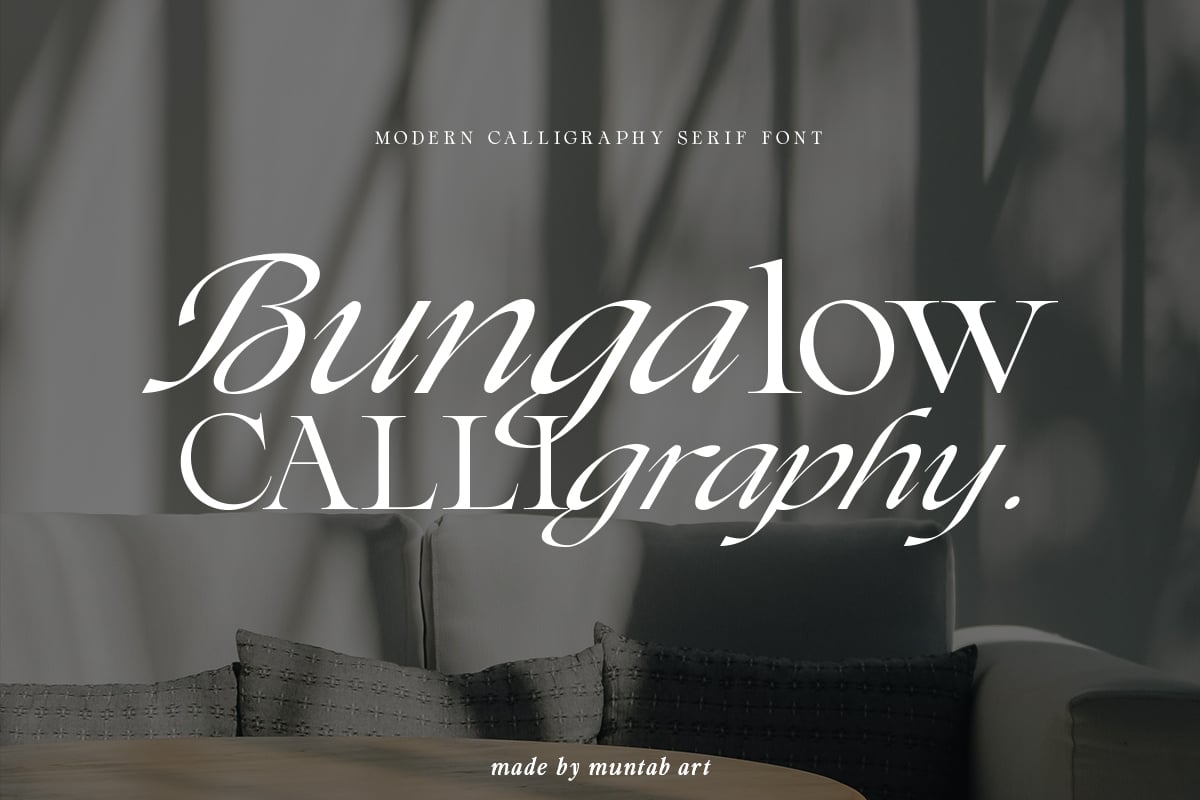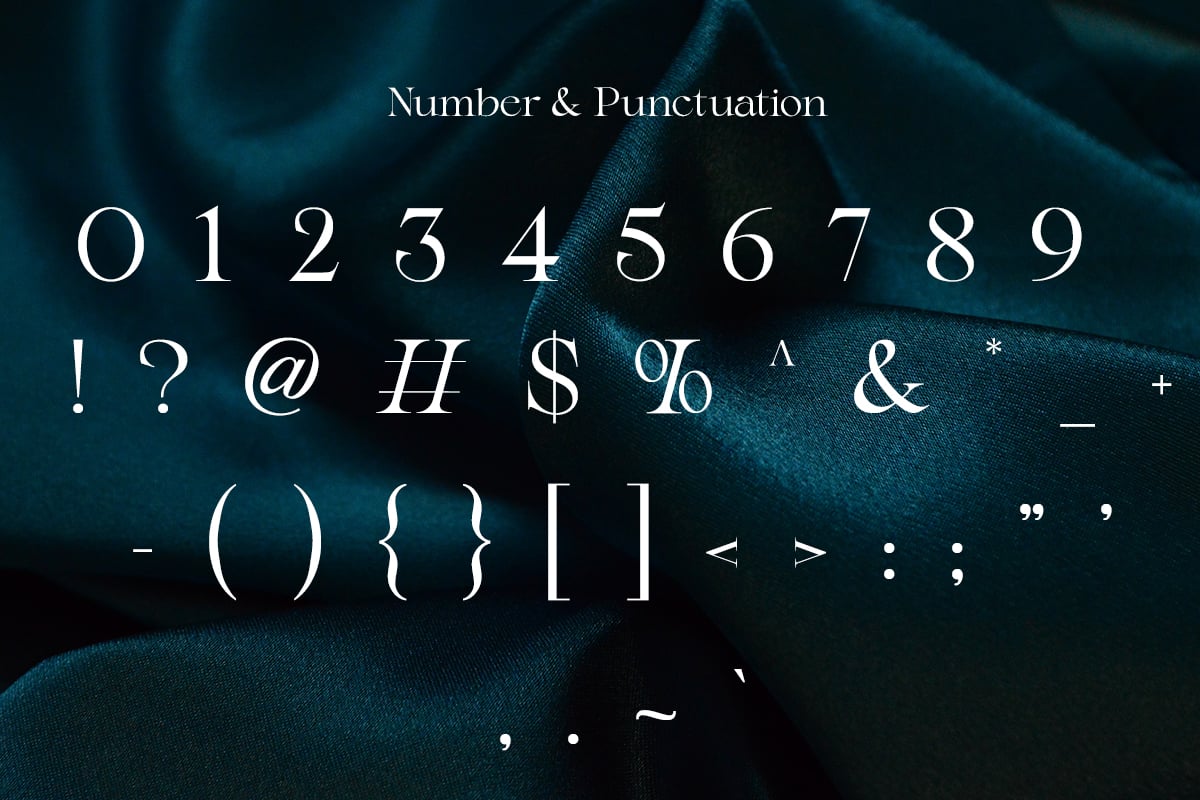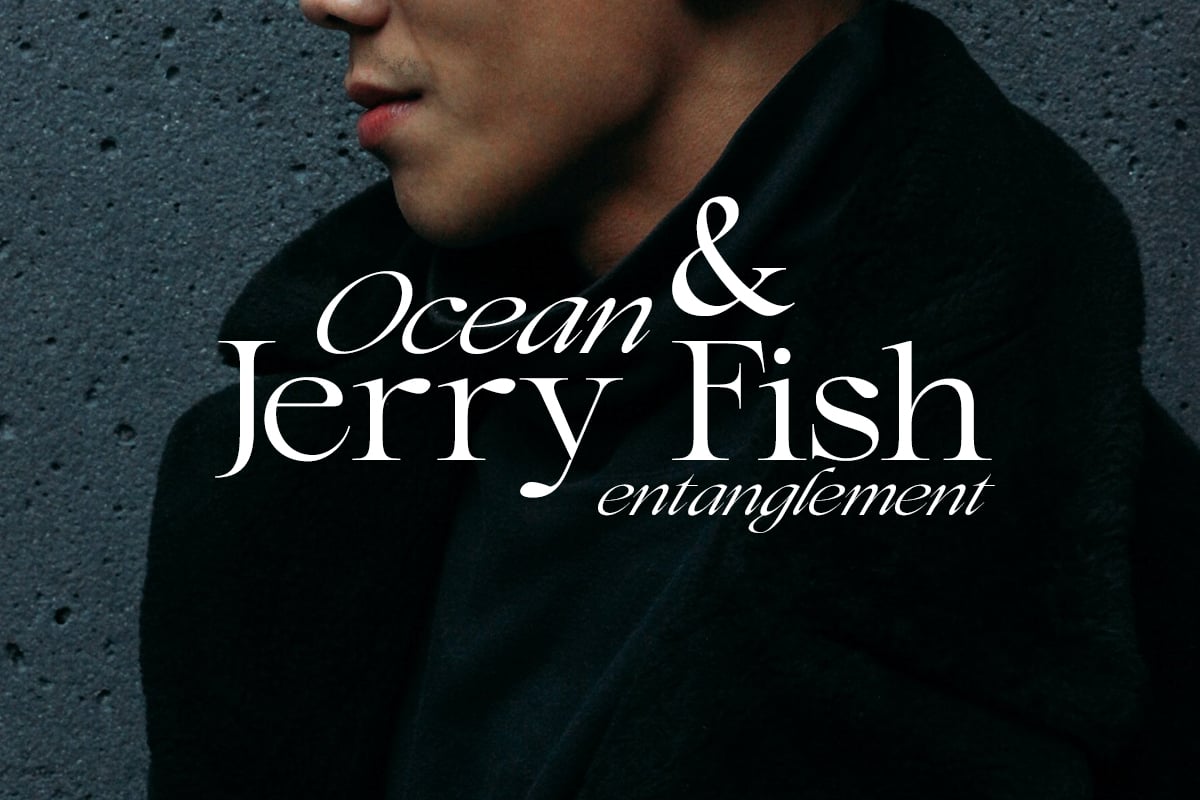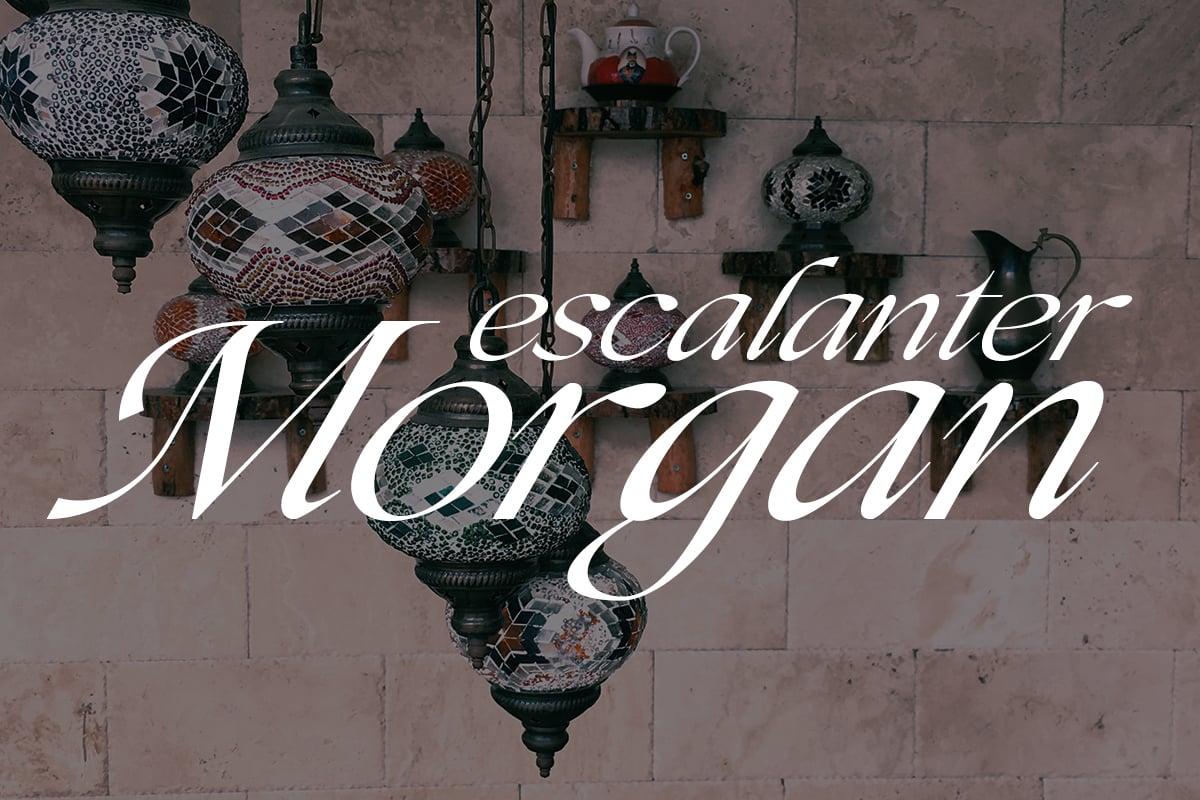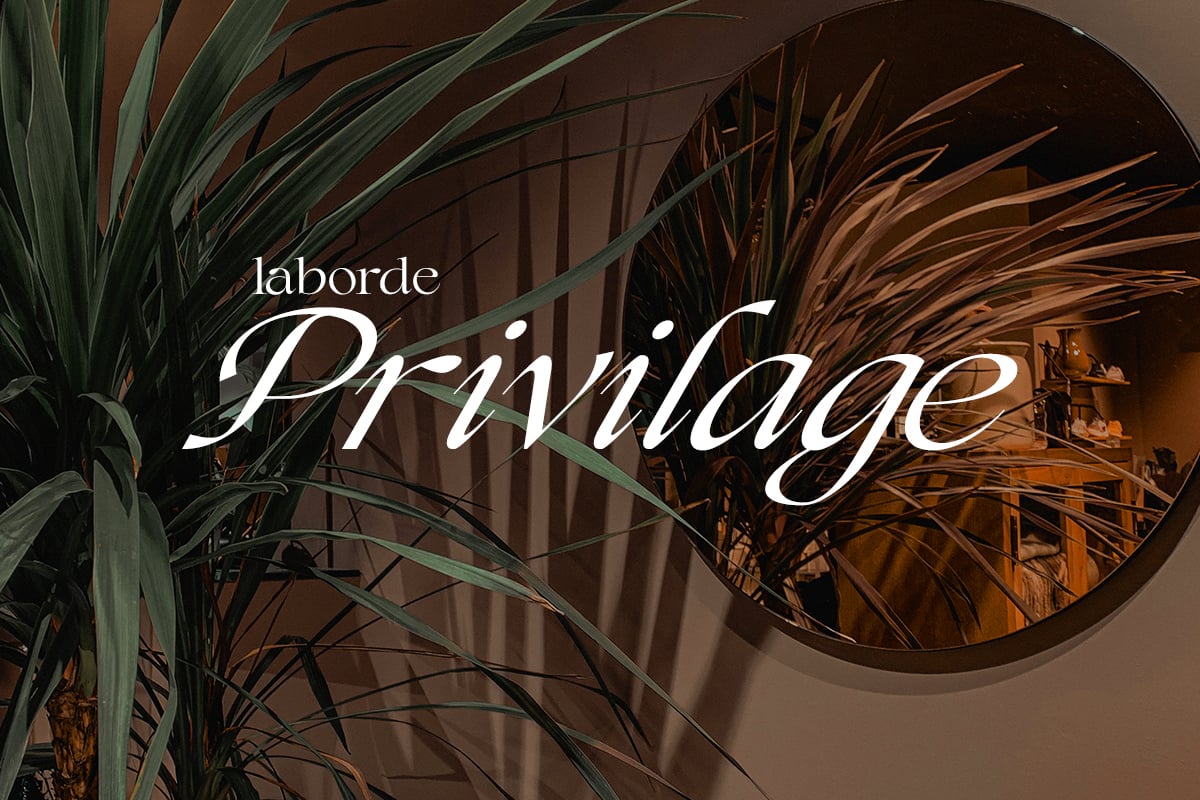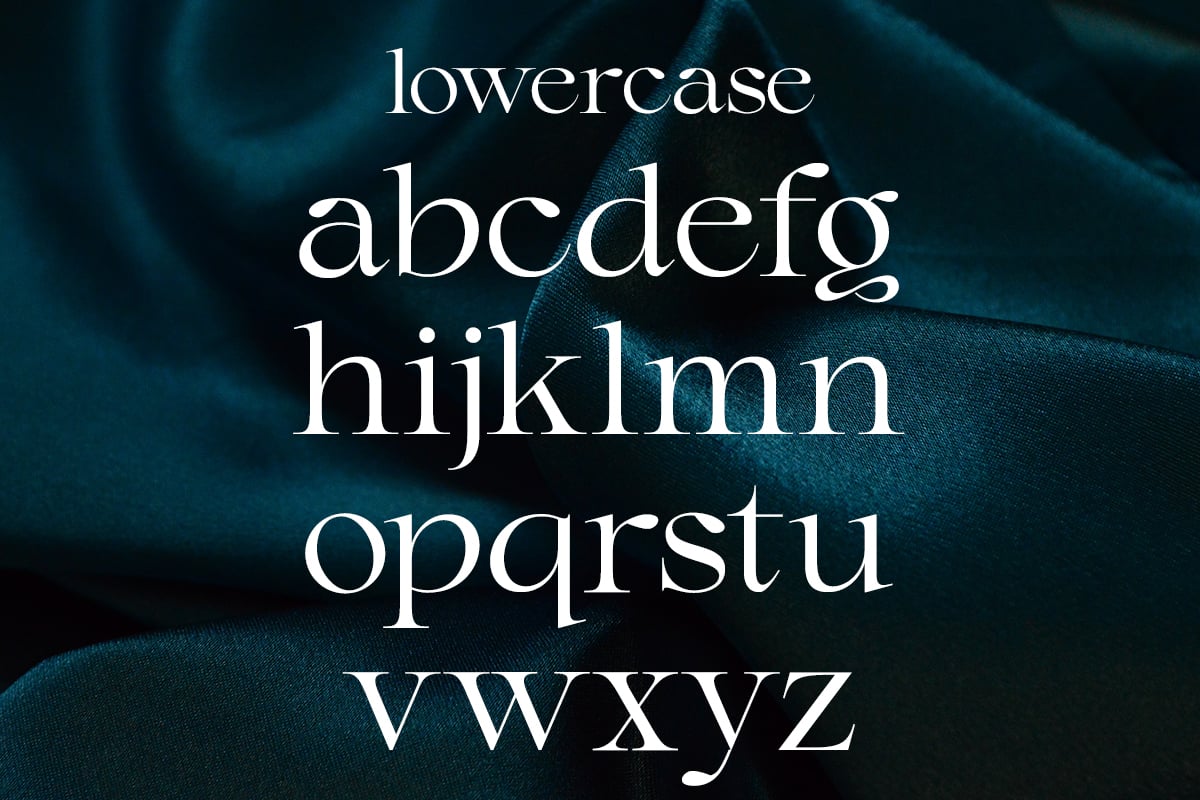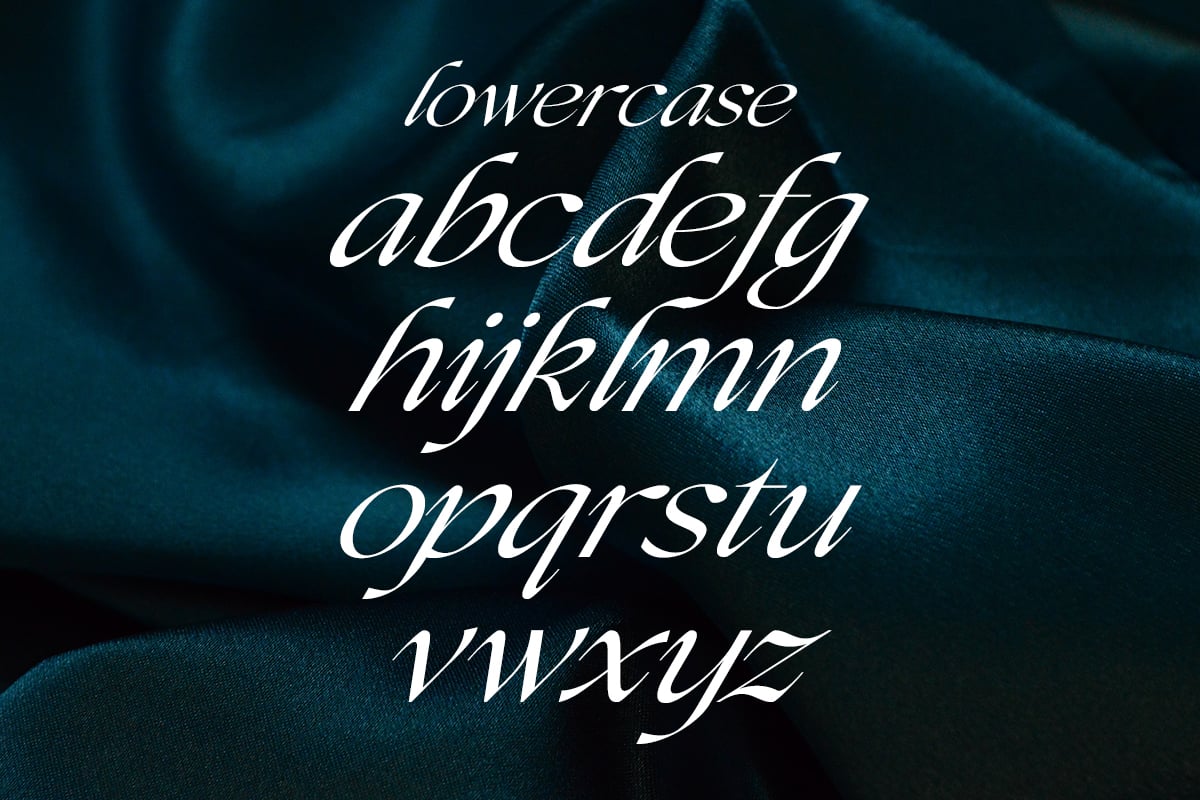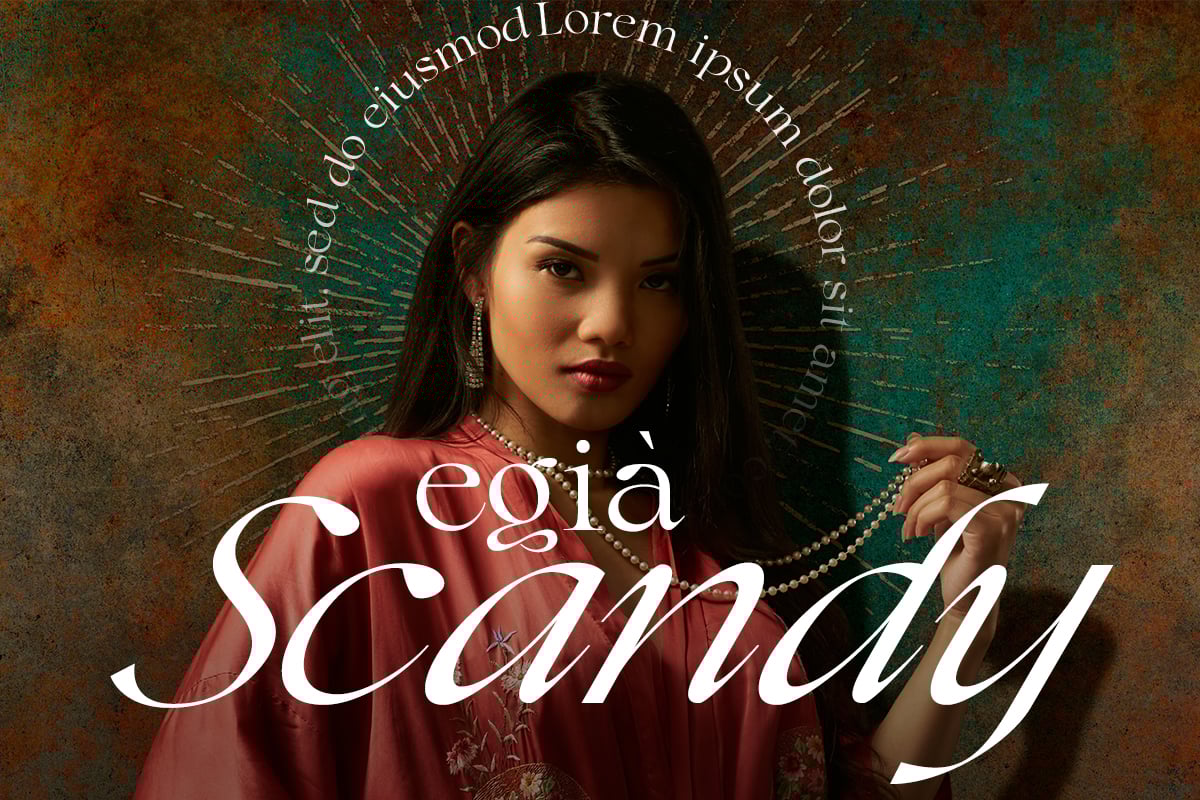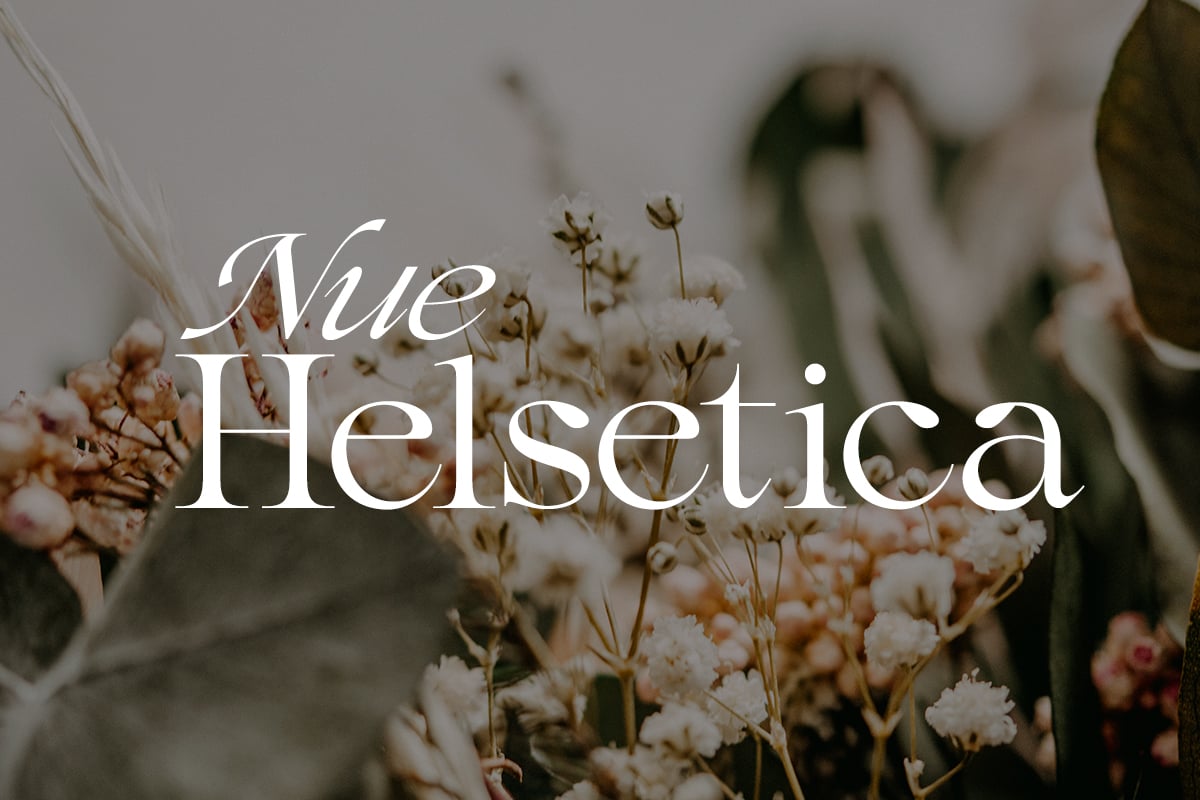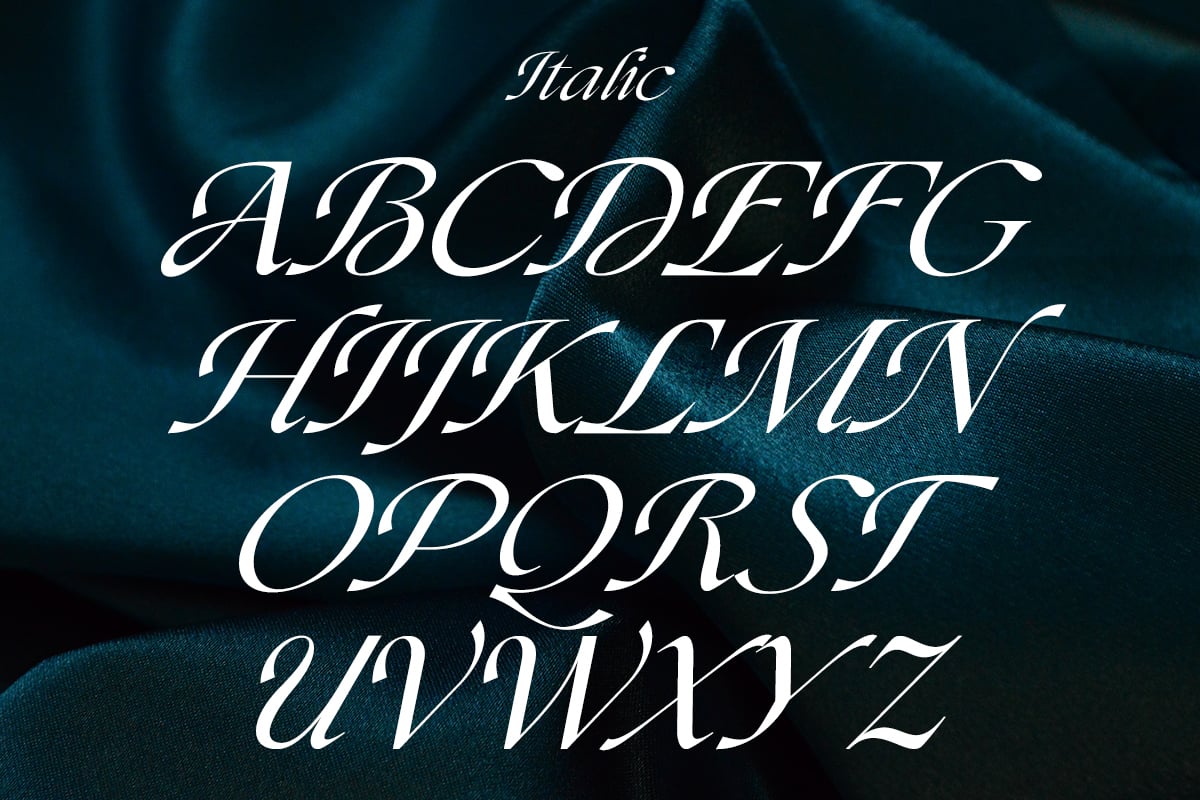
Bungalow | Calligraphy font
Bungalow fonts includes uppercase letters, lowercase letters, numerals, a large range of punctuation. Serif font with rertro style include alternate uppercase characters. Created for poster, web design, branding, illustrations, badges and some other works.